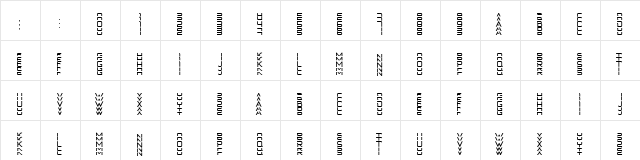
Sansdria Regular
Design Context for Sansdria Typeface
Sansdria offers clean, dependable letterforms without strong stylistic allegiance, making it a practical choice for designers who need flexibility.
Pro Tip: Use Sansdria in both headline and body roles to test its range before committing to a single application.